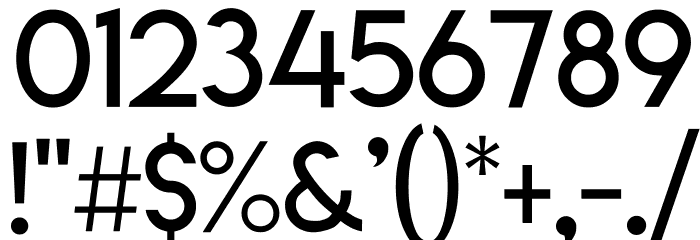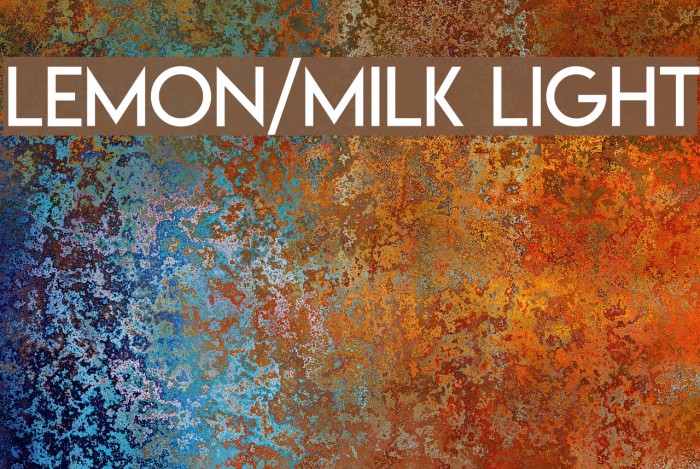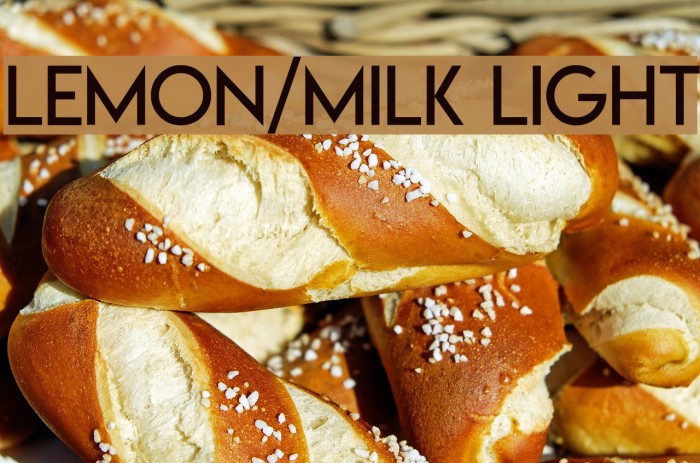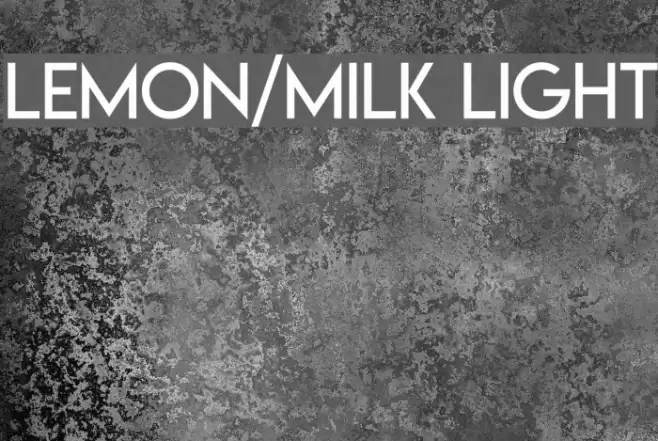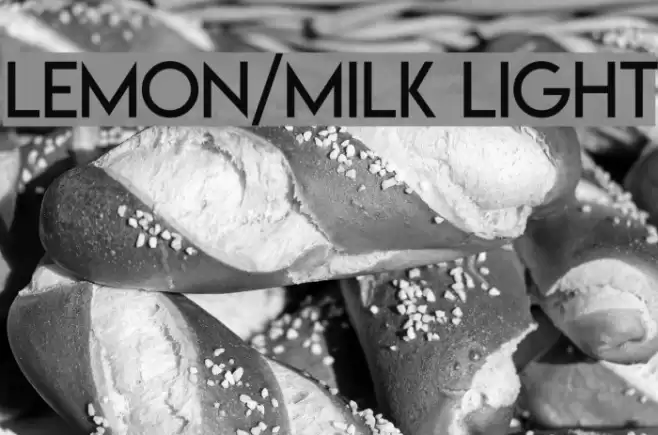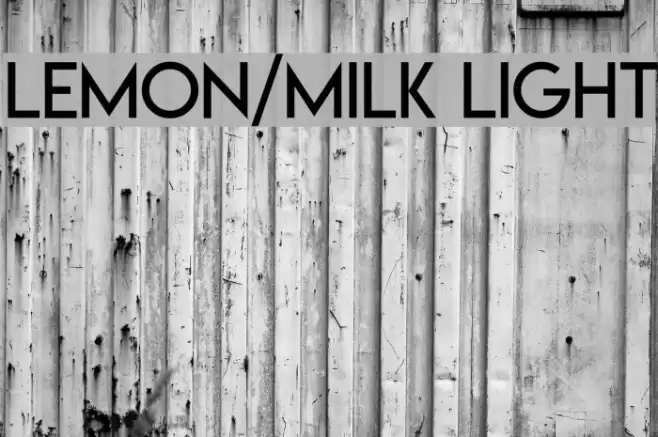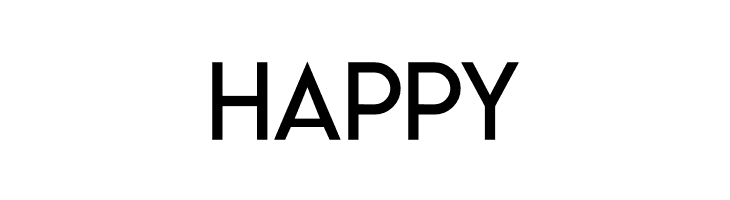
Lemon/Milk light Font
This font features a clean and modern sans-serif design with geometric influences. The characters are well-balanced, offering a harmonious appearance that is both professional and approachable. The uppercase letters are bold and assertive, while the lowercase letters maintain a consistent style that complements the overall aesthetic. The numerals are clear and easy to read, making them suitable for various applications. The special characters are designed to match the font's sleek and contemporary look, ensuring versatility across different contexts. Its simplicity and clarity make it ideal for a wide range of design projects.
A modern, geometric sans-serif font with a clean and professional look.
- Proposed Projects: Ideal for branding, advertising, web design, and editorial layouts.